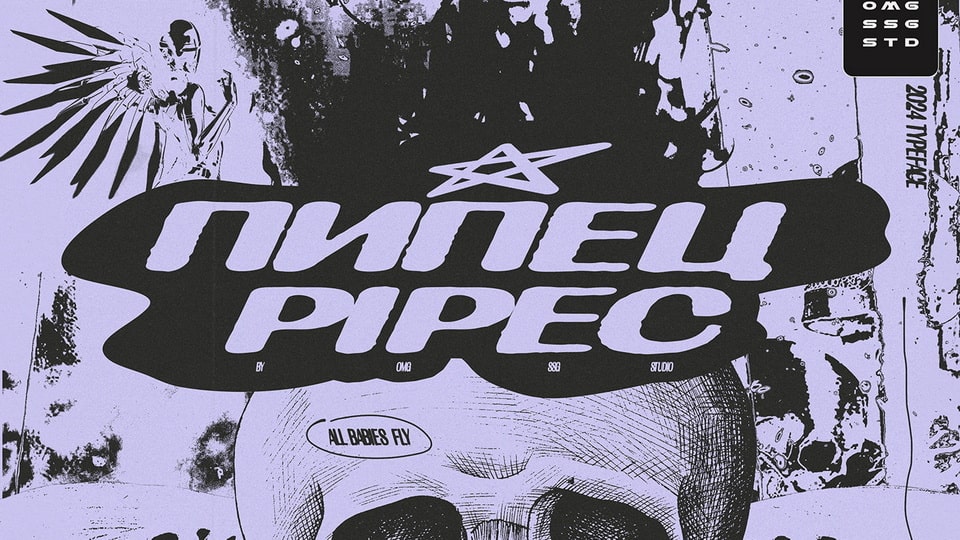
Download Pipec font, a bold and expressive typeface crafted for impactful designs, perfect for striking logos, vibrant posters, and edgy streetwear.
Designer: OMG SSG STUDIO